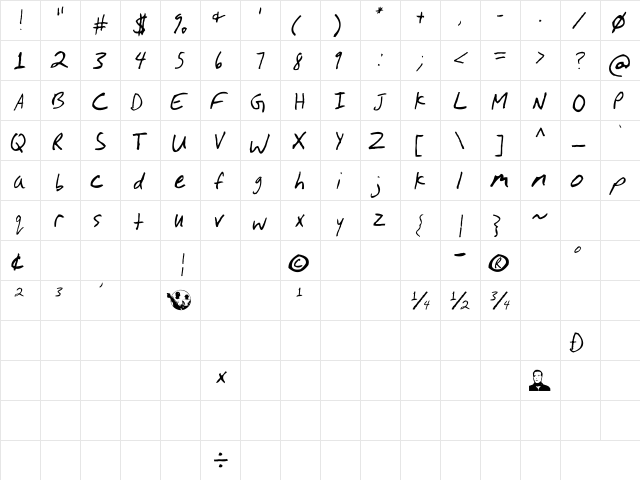
Barry Handwriting Regular
Design Context for Barry Handwriting Typeface
Barry Handwriting flows with the natural rhythm of handwritten lettering, making it ideal for designs that call for warmth and personal expression.
Font Pairing: Combine Barry Handwriting with a simple geometric sans for maximum contrast — the tension between flowing curves and clean structure is a classic typographic pairing.
Pro Tip: Pair Barry Handwriting with a clean sans-serif for supporting text. The contrast between fluid script and geometric structure creates an elegant typographic hierarchy.